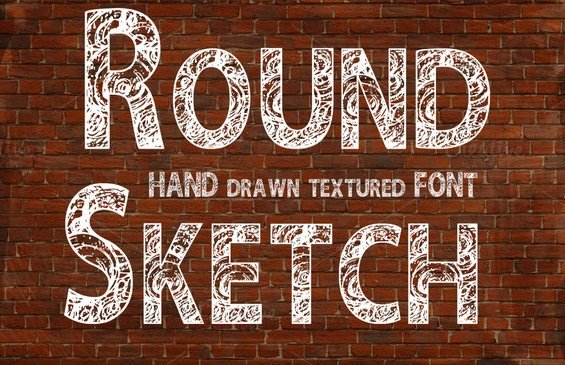
Round Sketch Font is a flowery font that has a totally specific and clean texture like blessed script. Every and each letter has featured the damaged corner traces which look likes it designed with stones.
He took the inspiration from the hand-made signs and symptoms seen on the street. That’s why, all and sundry shapes, strains corners look like they’re improvised.
It has a strong texture which could assist in both small in addition to lengthy text paragraphs. So, so as to be the best font on your upcoming responsibilities. Because there are some designers who are already is aware of its legibility.
That excellent splendid font that looks like qilla typeface has a low evaluation with a tall X-top to enhance the clearness of texts in order that it explores the usage of robust letterforms for content.
Just because the name shows, that is a smooth and revolutionary font that incorporates slender person design. This font is right for designing titles for posters and flyers.